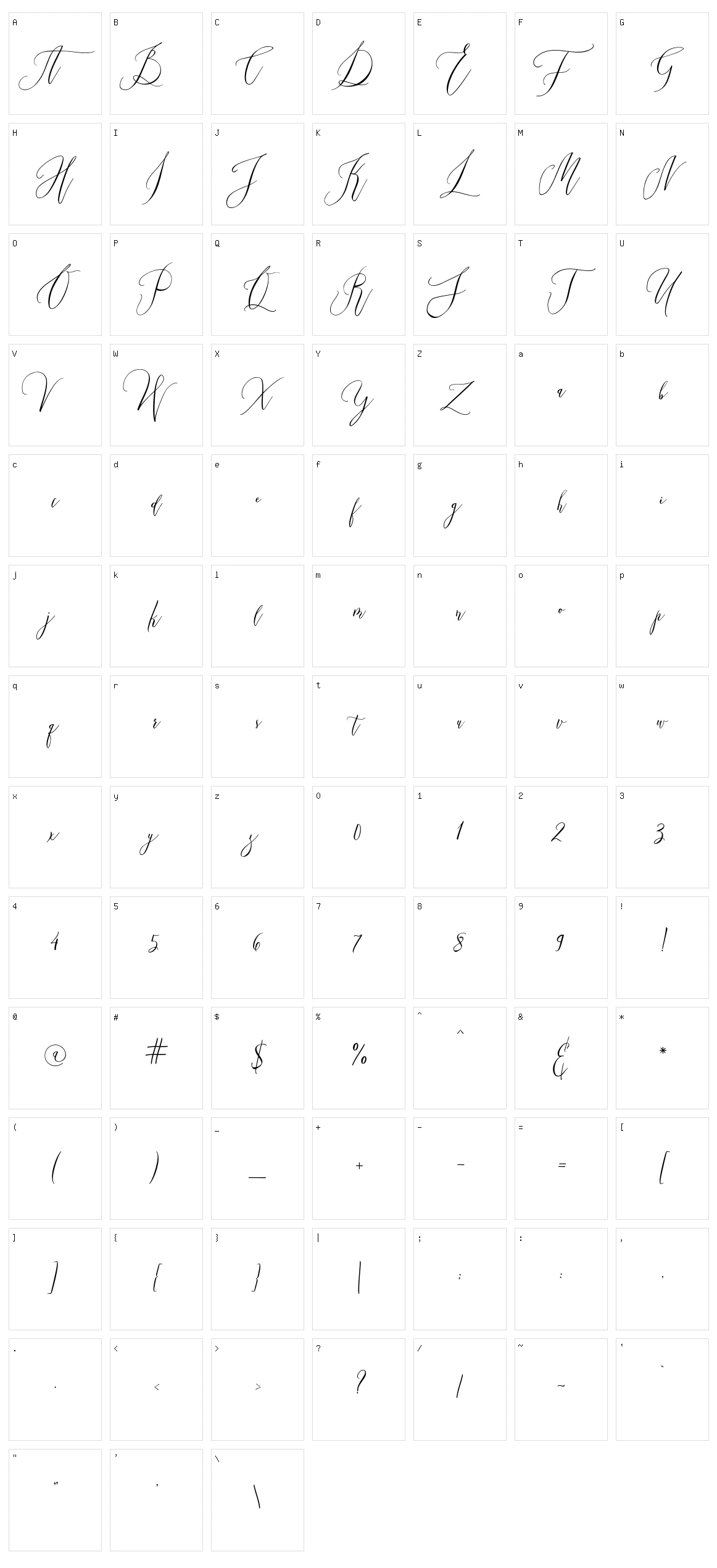
The free font Married Typefaces is carefully designed by Joel Maker Studio, showcasing a thoughtful balance of creativity and usability and falls under the Script font style. When you download the ZIP file, it contains only 41.22 KB of font files, making it lightweight and quick to download. Please review the license details below to understand permitted usage and distribution rights. If license information is not available, we recommend using this font for personal projects only or contacting the author directly for commercial usage permissions.